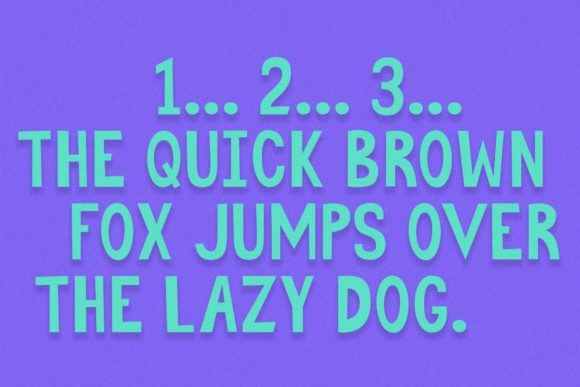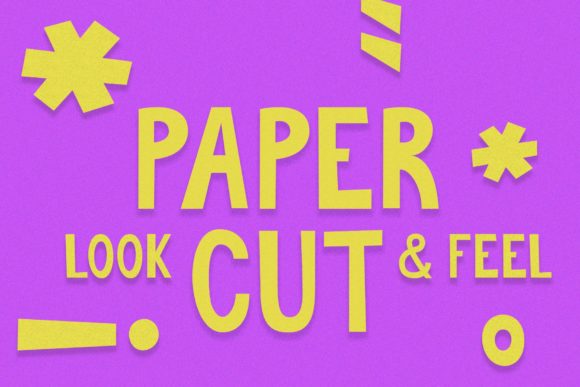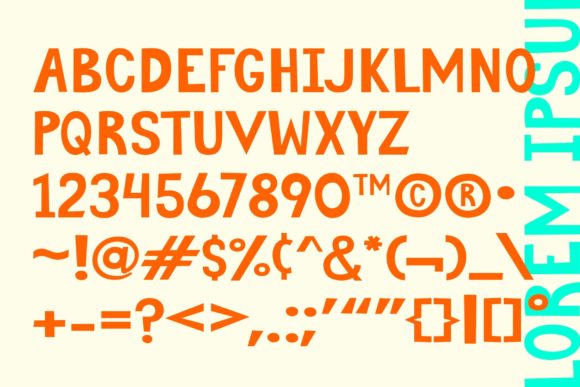
The Joy of Bobbie Font: Unlocking Your Inner Child
Do you remember the moment when you first discovered your creative spark? Maybe it was doodling in your notebook, crafting a handmade card for a loved one, or designing a flyer for a school project. Whatever it was, that moment of pure imagination and excitement is what drives us to keep creating. And what better way to tap into that sense of wonder than with the enchanting Bobbie Font?
This playful display font is designed to bring a smile to your face and a twinkle to your eye. With its childlike playfulness, Bobbie Font is perfect for adding a touch of whimsy to any project – from kids’ birthday invitations to school newsletters. Whether you’re a seasoned designer or a budding artist, this font is sure to inspire you to think outside the box and push the boundaries of your creativity.
Bobbie Font Key Features
- Font Family: Bobbie Font is a sans-serif font family.
- Font Size and Resolution: Designed to be highly legible, with a recommended font size range of 10-24 points and a resolution of 300 DPI (dots per inch).
- Unique Characteristics: Bobbie Font features a clean, modern design with rounded edges and subtle curves, making it suitable for a wide range of applications, including digital and print media.
Bobbie Font Review
Overall, I was excited to try out Bobbie Font, but I have mixed feelings about its performance.
- Unique aesthetic – Bobbie Font has a distinct and quirky feel to it, making it perfect for projects that need a bit of personality.
- Good legibility – The font is relatively easy to read, even at smaller sizes.
- Wide language support – Bobbie Font covers a wide range of languages, making it a great choice for international projects.
- Variable font behavior – I found that the font’s variable behavior can sometimes result in inconsistent spacing and sizing.
- Lack of bold weights – The font’s bold weights can appear somewhat inconsistent, which may affect the overall design.
- Not ideal for body text – While Bobbie Font works well for headings, it may not be the best choice for body text due to its unconventional style.
In conclusion, Bobbie Font is a great choice for projects that require a unique and quirky aesthetic, but it may not be the best fit for every design task.
Bobbie Font is a sans-serif font designed for digital use. It’s available for download on popular font websites and can be used across various platforms, including Canva, Adobe Photoshop/Illustrator, and PowerPoint/Word.
Tips for Getting the Most Out of Bobbie Font
To get the most out of Bobbie Font, keep the following tips in mind:
- Use Bobbie Font for digital projects, as it’s designed for screen use.
- Experiment with different font styles and sizes to find the perfect combination for your project.
- Pair Bobbie Font with other sans-serif fonts for a clean and modern look.
Bobbie Font is commonly
Alternatives to Bobbie Font
Lato is a modern sans-serif font designed by Łukasz Dziedzic. It is suitable for digital and print media, including websites, magazines, and advertisements. Lato is known for its clean lines, legibility, and versatility, making it a popular choice among designers. Compared to Bobbie Font, Lato is more geometric and has a slightly more condensed feel.
Montserrat is a geometric sans-serif font designed by Julieta Ulanovsky. It is ideal for urban and modern designs, including city guides, magazines, and websites. Montserrat is known for its strong, urban feel and is often used to convey a sense of sophistication and elegance. Compared to Bobbie Font, Montserrat is more geometric and has a stronger, more masculine feel.
What is the recommended font size and line height for Bobbie Font?
The recommended font size for Bobbie Font is 10pt to 14pt, with a line height of 1.2 to 1.5 times the font size. This will ensure optimal readability and legibility of the font.